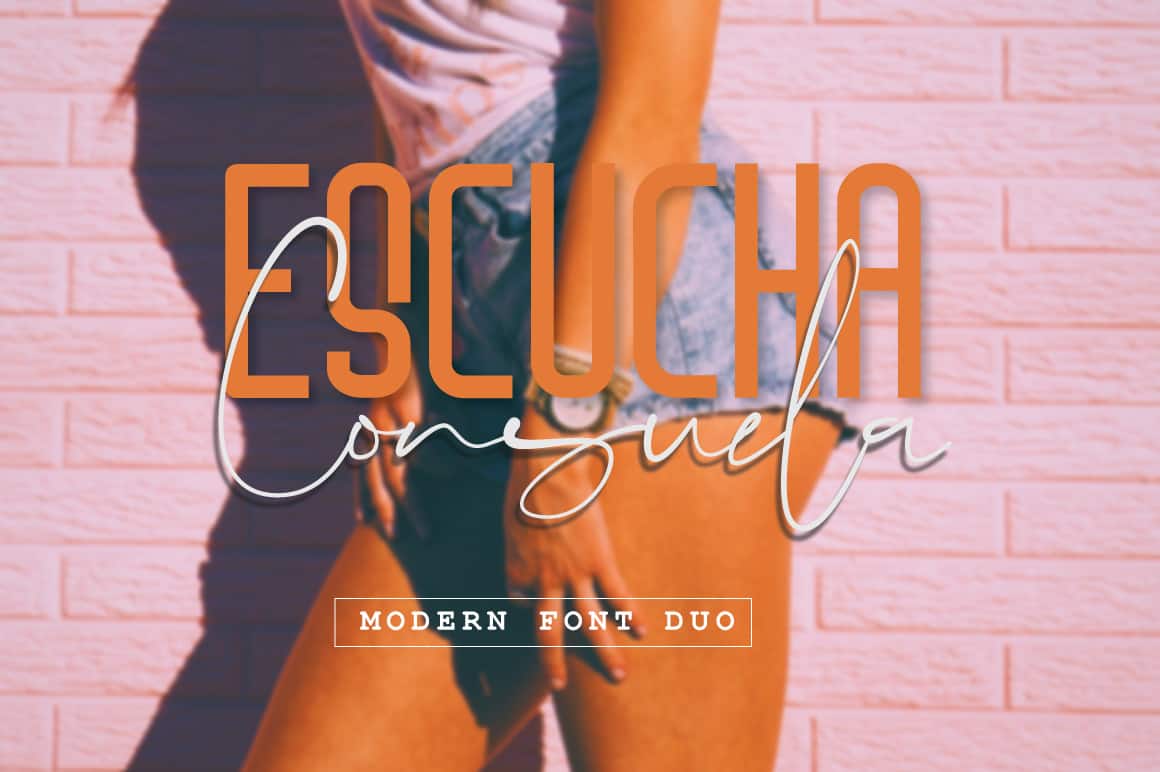
Escucha Consuela Font Duo
Hey there! This is a modern serif and script font with Gorgeous Textures that highlight the Beauty of each individual Letter. Introducing Escucha Consuela Typeface. Escucha Consuela designed and shared by Digital Hustler. Escucha Consuela offers beautiful contrasting typography for a diversity of design projects, including; logos & branding, packaging design, social media posts, advertisements & product designs.